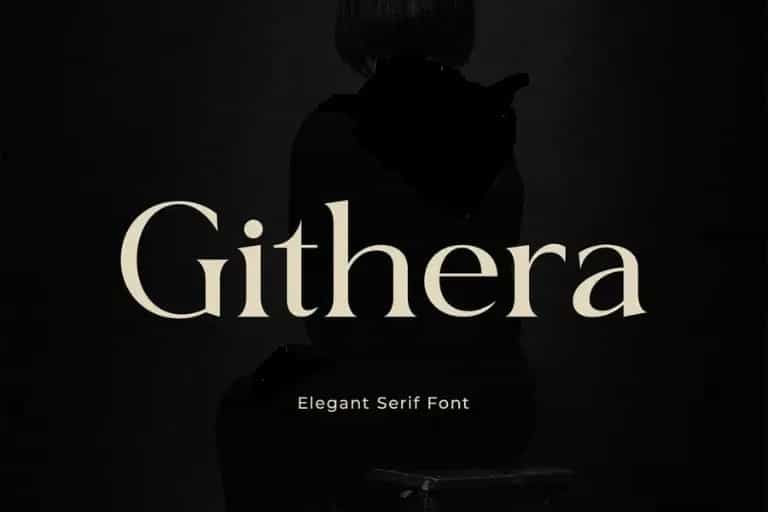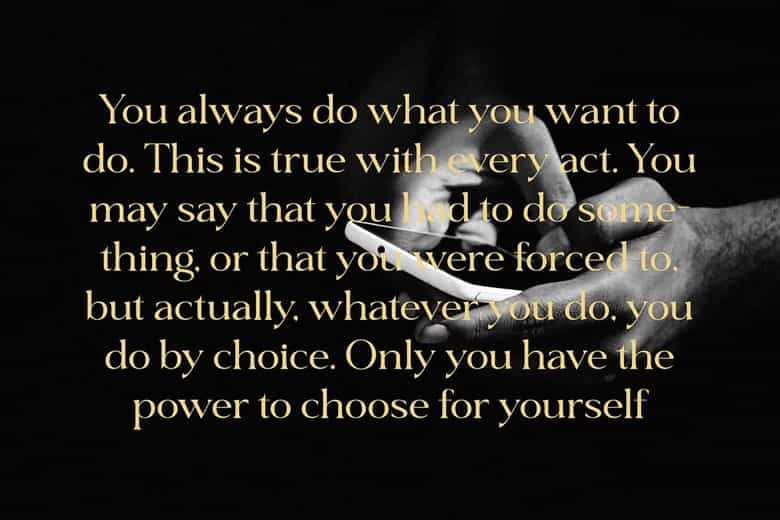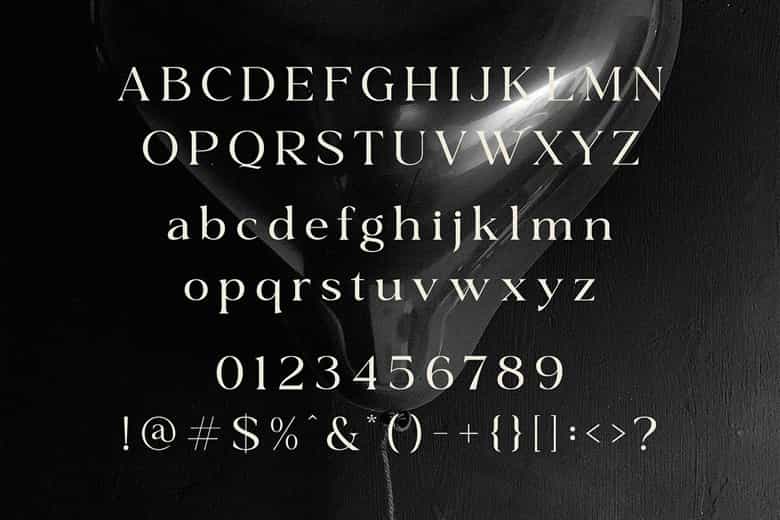
Githera is an elegant modern and minimalistic serif font, perfect for use when creating headings, logo/branding, magazines, product packaging and invitation.